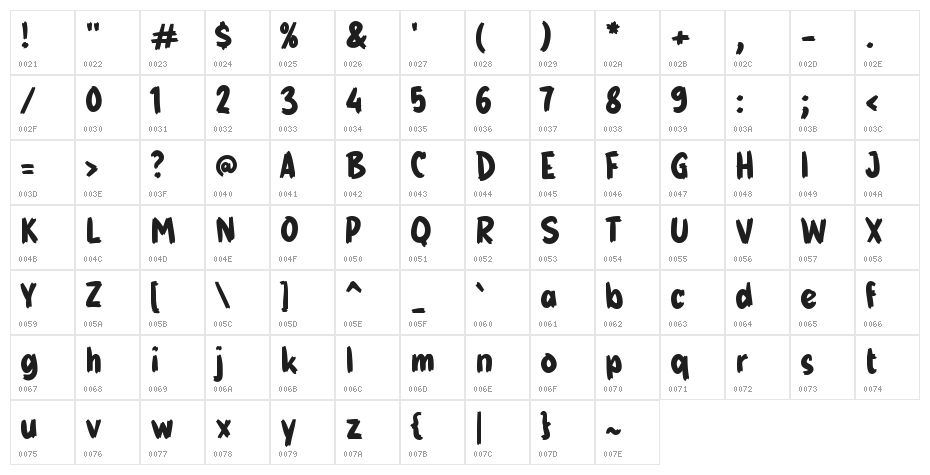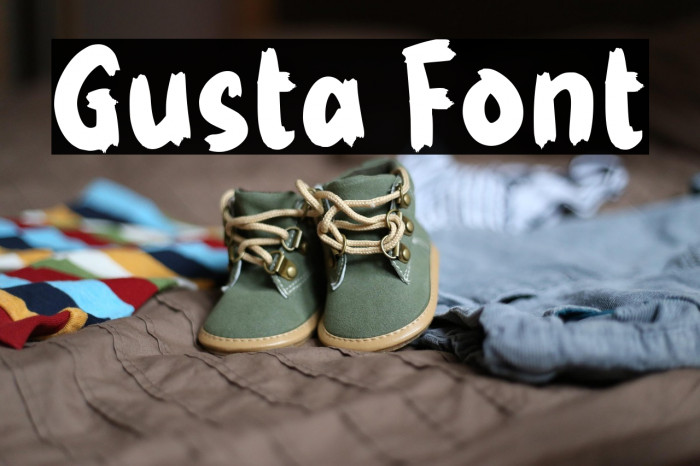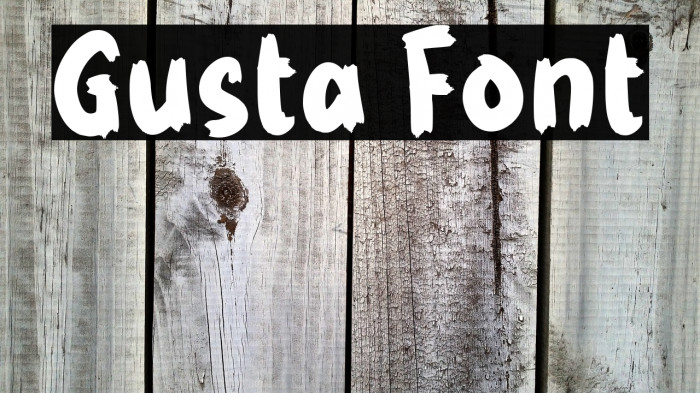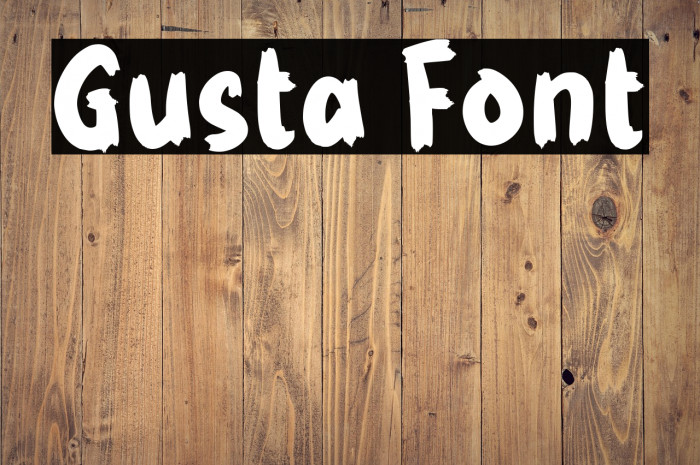
Gusta Font
Gusta Description
This font features a bold and playful handwritten style, characterized by its thick strokes and slightly irregular shapes. The letters have a dynamic and energetic appearance, with a sense of movement and spontaneity. The uppercase and lowercase letters maintain a consistent style, while the numbers and special characters complement the overall aesthetic. The font's boldness and unique character make it stand out, adding a personal and informal touch to any design.
| Overall Style | Playful, Energetic |
| Proposed Projects | Ideal for creative projects such as posters, invitations, children's books, and branding materials that require a personal and informal touch. |